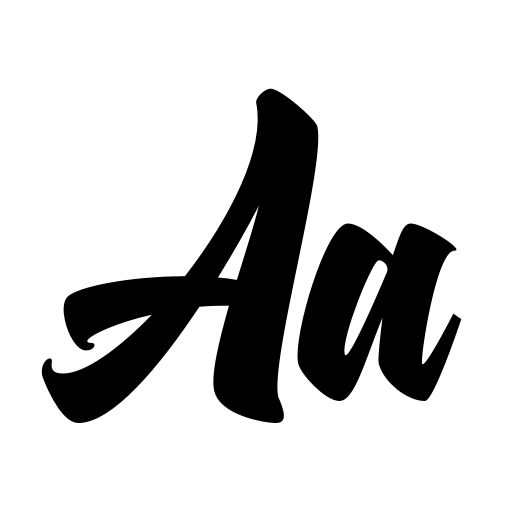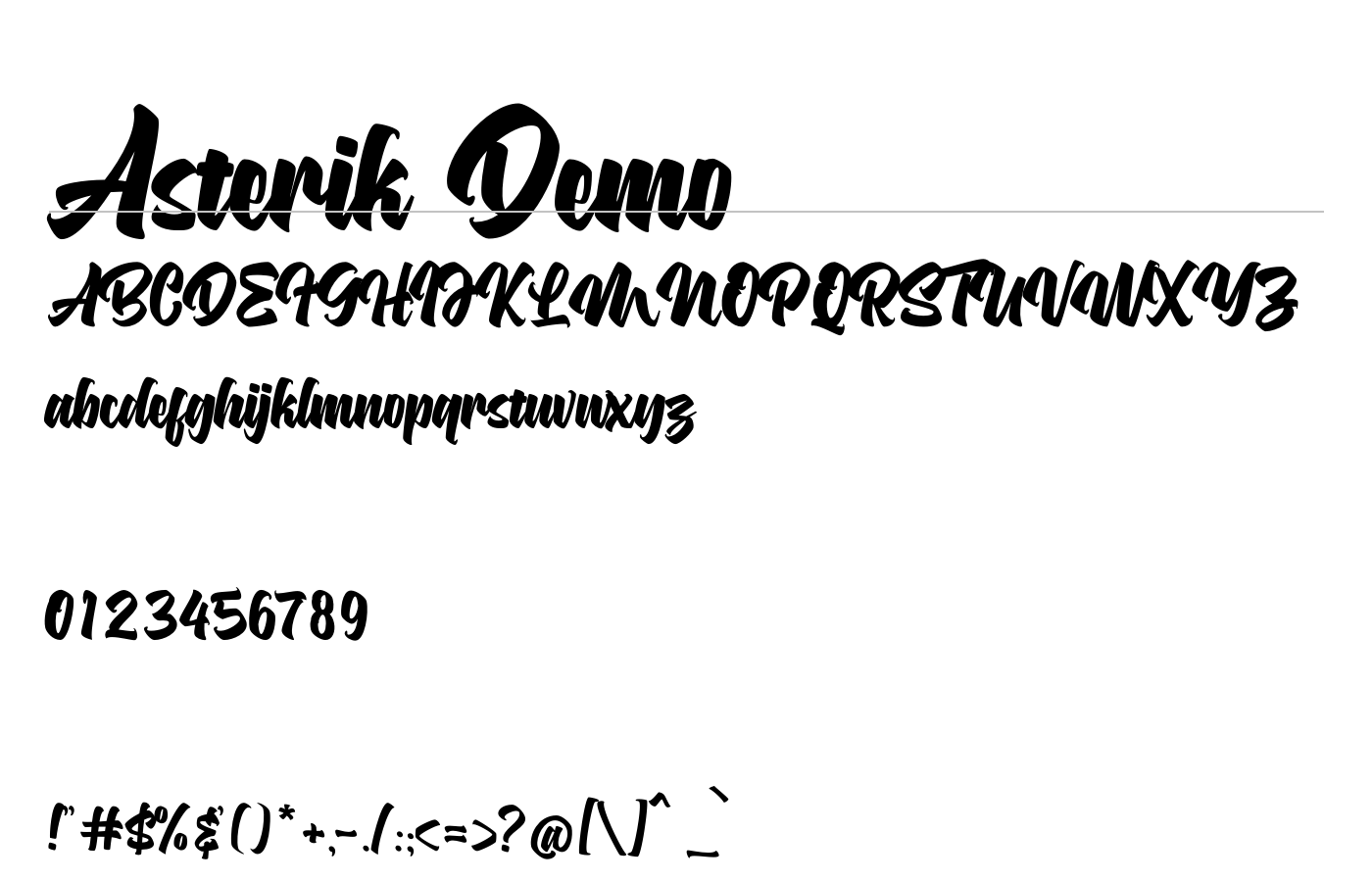
Asterik is a bold, brush-script font with a lively and energetic feel, characterized by thick, dynamic strokes and an informal yet stylish hand-drawn look. Its high contrast and fluid letterforms make it perfect for headlines, logos, and creative projects that seek a playful and expressive personality. This font works well in branding and poster design, where a strong, personal touch is needed to grab attention.
Asterik Font
About Asterik Font
| Font family | Asterik Font |